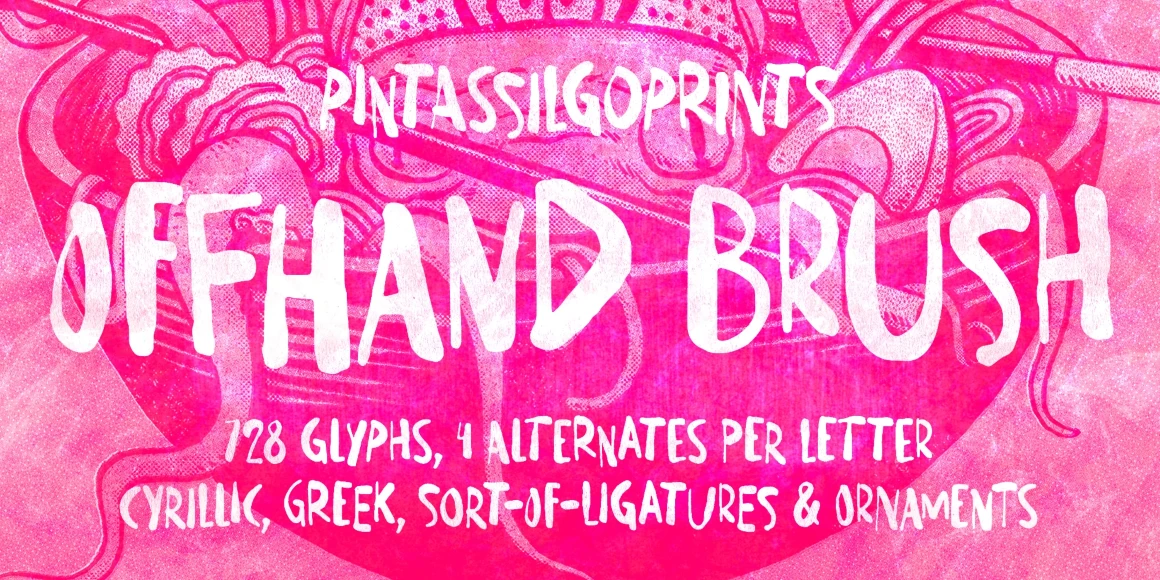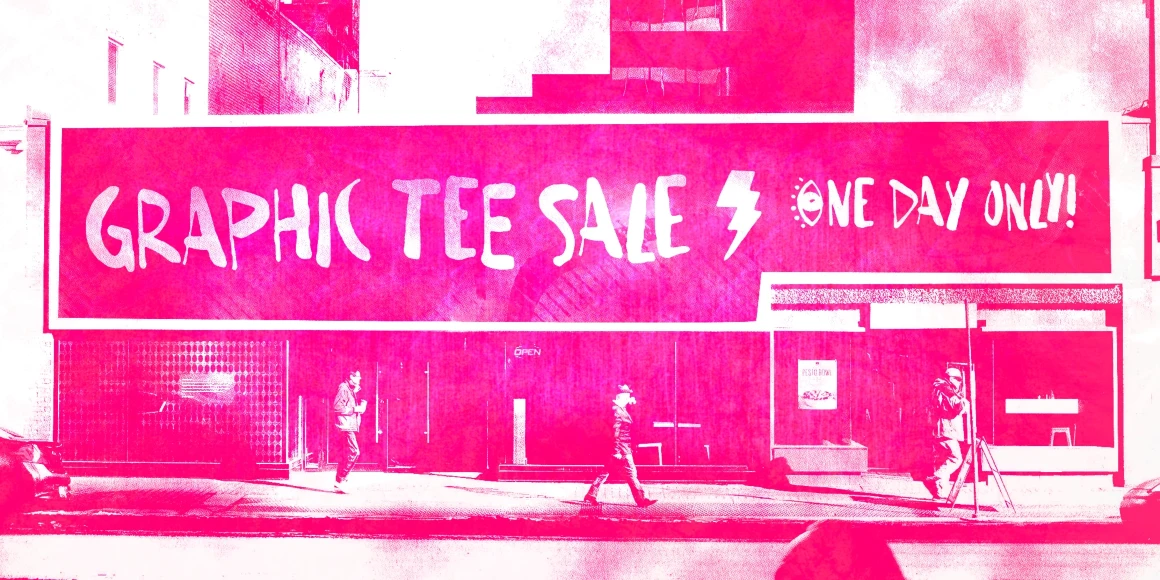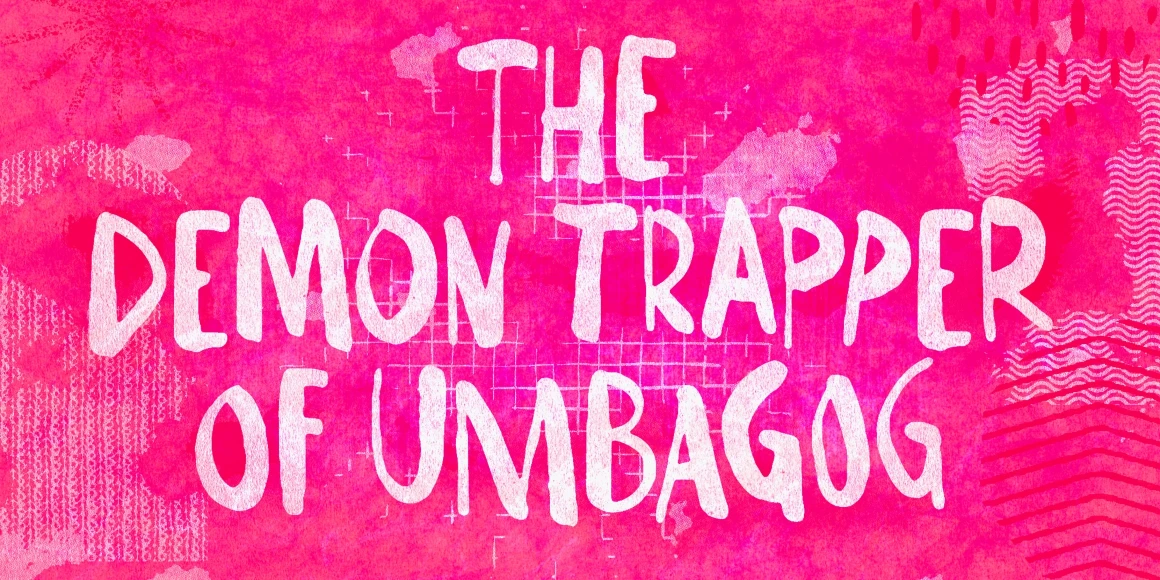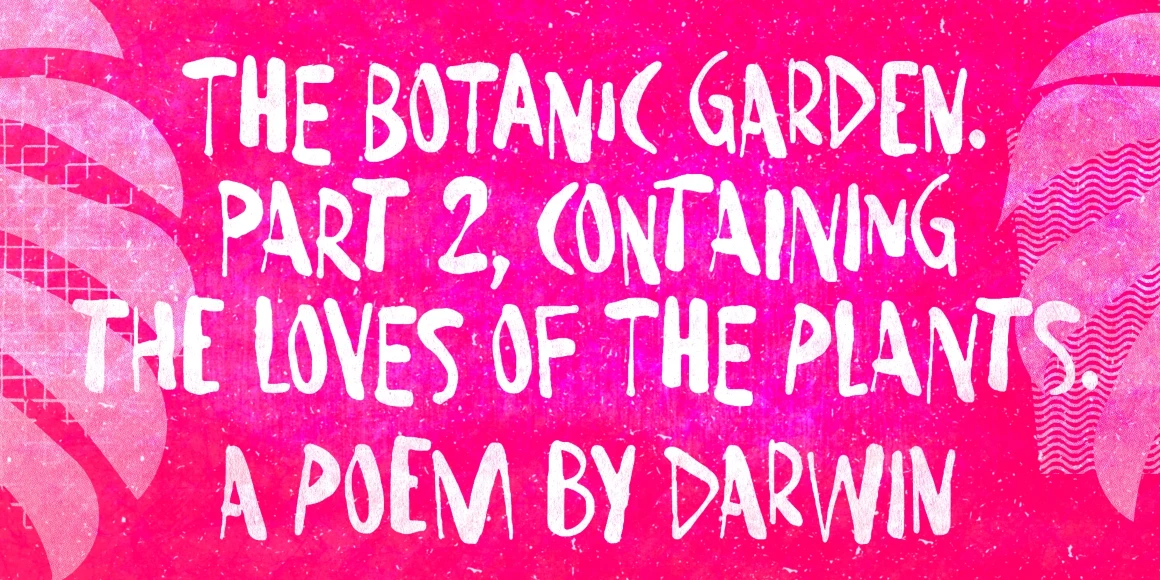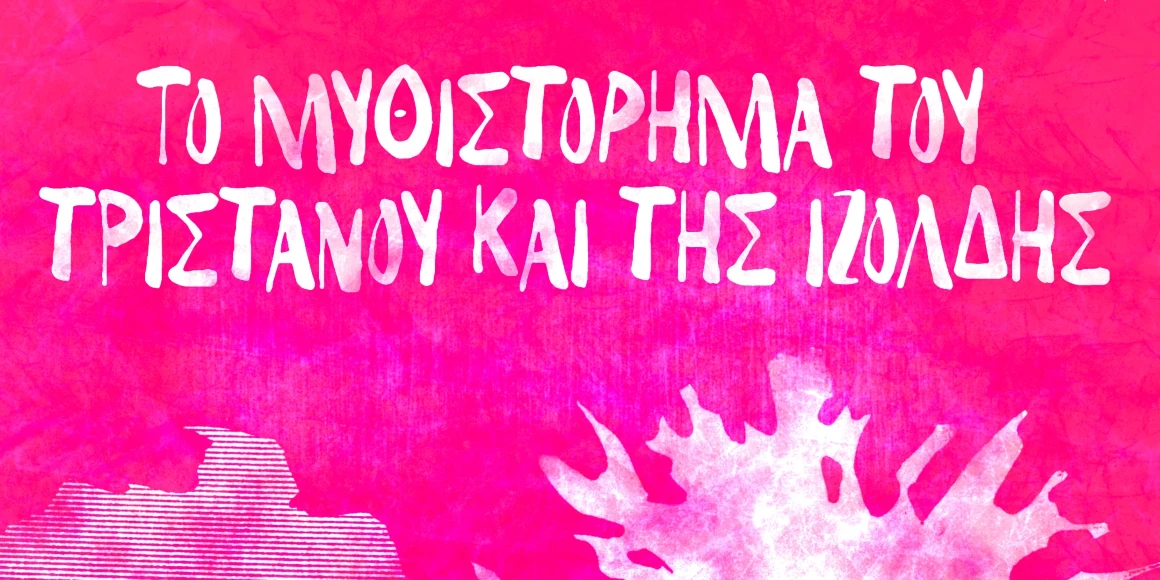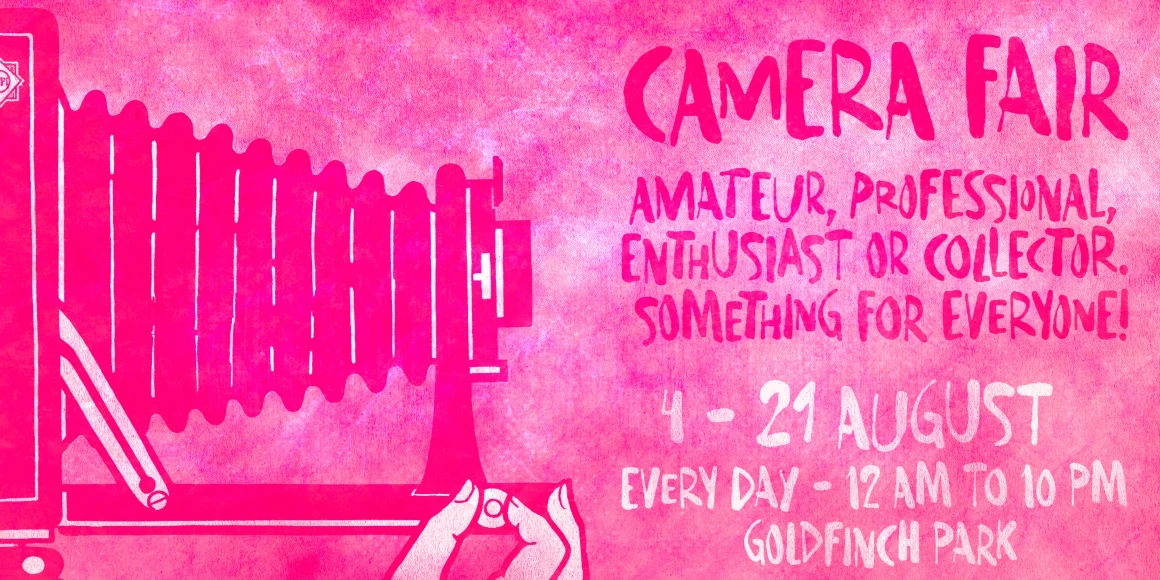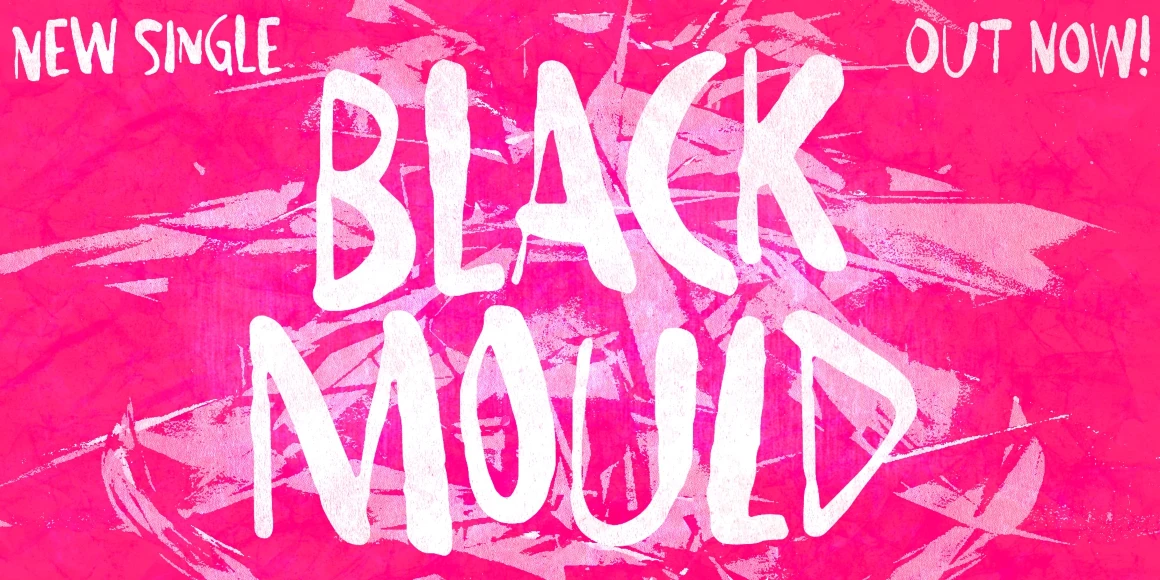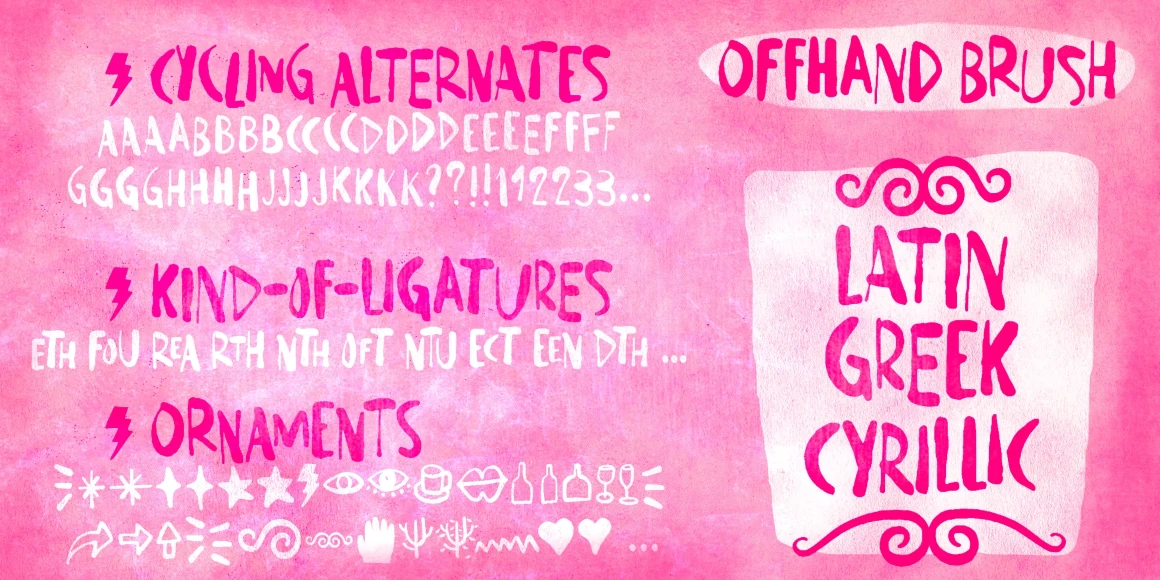
Offhand Brush
Offhand Brush is a fast, spontaneous brush font with a slightly messy feel. It’s an excellent option for book covers, packaging projects, album art, web titles, and even small chunks of text. You might see something a little messy, but it was laborious work, with four alternates for each Latin letter, two for numerals, and two options for Cyrillic and Greek letters to add liveliness and energy. Hey, wait! There are some ornaments, too. Hell yes! Use it big!
• Belarusian
• Bulgarian
• Greek
• Macedonian
• Russian
• Serbian
• Ukrainian
• Uzbek